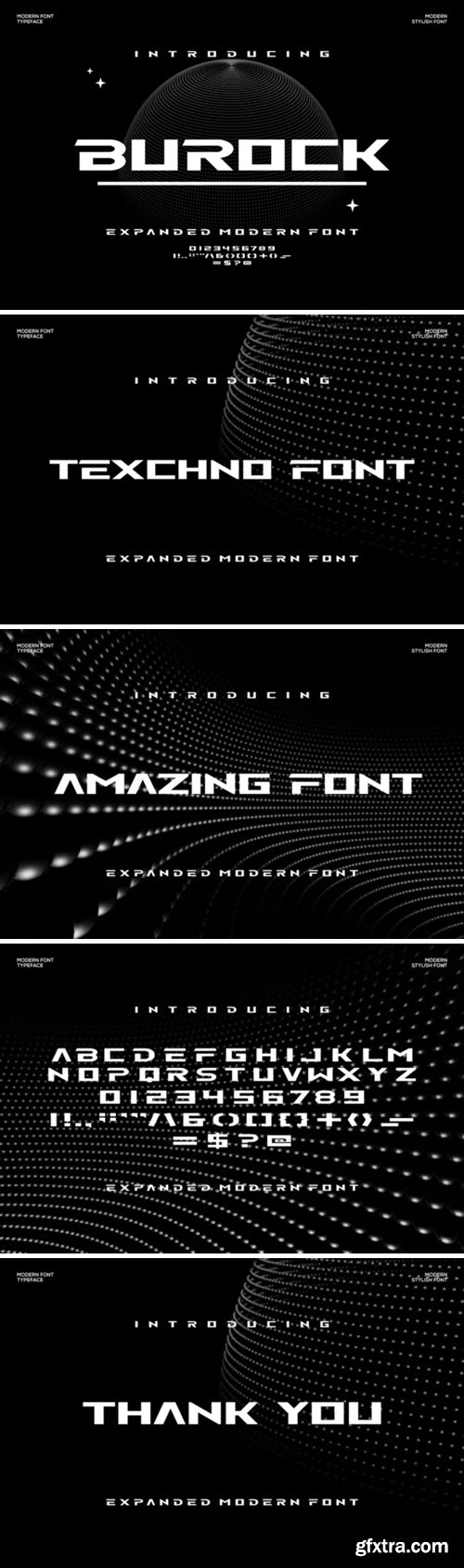
Presenting our new product **Burock Font** – Modern Font **BurockFont** – Modern Font is a bold and authentic display font. This font is perfect for any branding project such as logos, t-shirt printing, creative products, and more. Extraordinary in a variety of contexts.